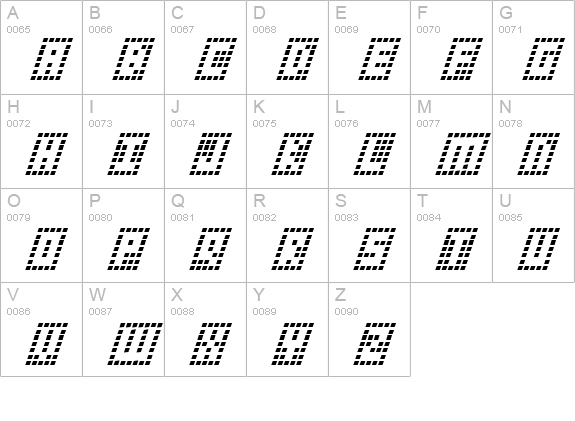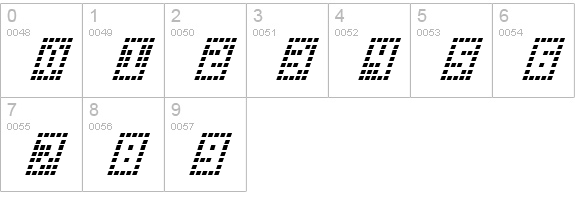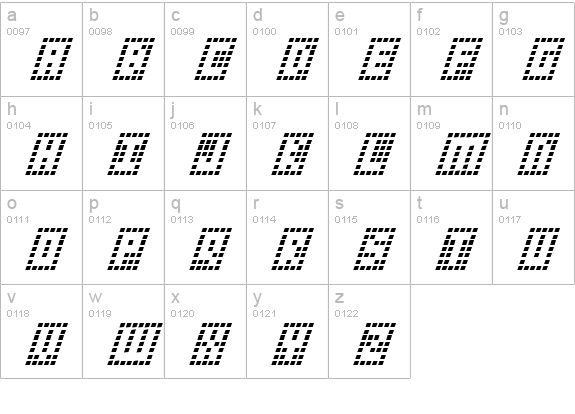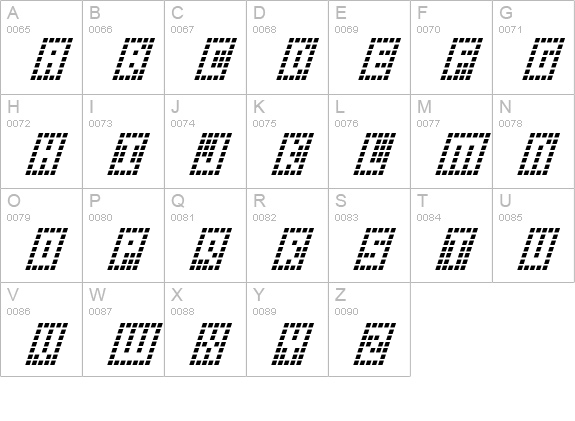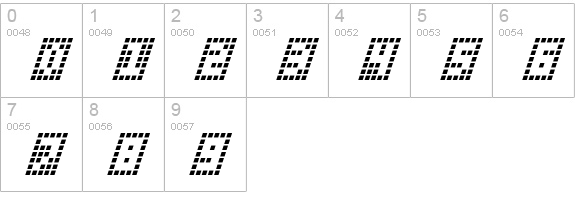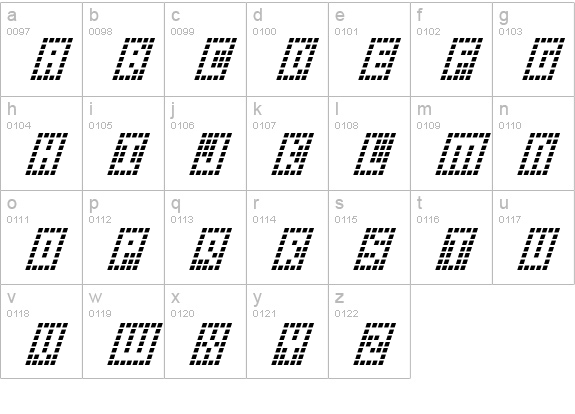
Y-Grid Italic is a distinctive, italic variant in the Y typeface family \xE2\x80\x94 well suited to design and typography projects.
Y-Grid Italic is a modern and stylish font that exudes elegance and sophistication. Its sleek and slanted design adds a touch of flair to any project, making it perfect for branding, advertising, and more. The italicized letters give a sense of movement and dynamism, making your text stand out in a crowd. The best part about Y-Grid Italic is that it is completely free to download at FontsMarket.com. This means that you can elevate your designs without spending a dime. Whether you're a graphic designer, a student, or a hobbyist, Y-Grid Italic is a versatile font that will enhance your creative projects. Don't miss out on this amazing opportunity to add a touch of class to your work with Y-Grid Italic.